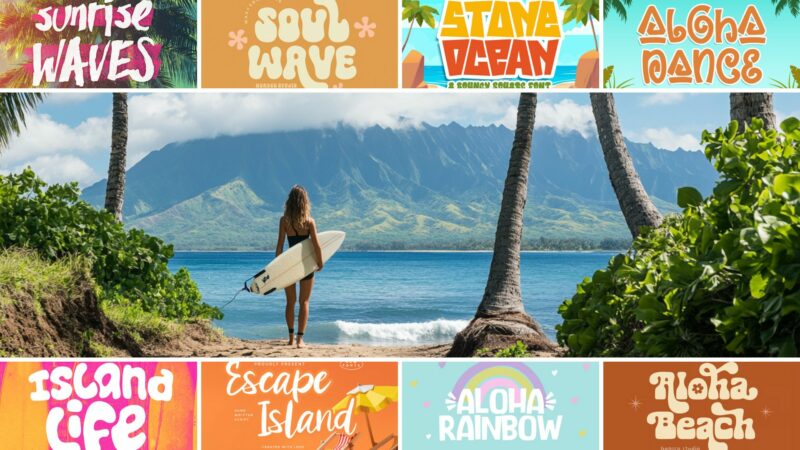
Finding the perfect Hawaiian font can transform an ordinary design into something that truly captures the aloha spirit. Whether you’re creating resort materials, restaurant menus, or brand designs that need that authentic island touch, the right font choice can transport your audience straight to the shores of Hawaii.
In this post, I’ll share my favorite Hawaiian fonts for 2026 and help you understand how to use them effectively. From flowing scripts that mirror ocean waves to bold display fonts that echo tiki culture, we’ll explore what makes a font feel authentically Hawaiian and how to incorporate that island charm in your designs.
My 52 Favorite Hawaiian Fonts Right Now
Tikiland
Tikiland is a playful and unique display font that evokes a tropical, island-inspired atmosphere. Its bold, quirky characters make it perfect for creating eye-catching headlines and logos with a fun, exotic flair.
Surfnik
Surfnik is a hand-crafted serif font that blends vintage surf culture with beatnik aesthetics. Its weathered appearance and retro charm make it ideal for projects seeking a nostalgic, laid-back vibe.
Aloha Dance
Aloha Dance is a whimsical script font that captures the essence of Hawaiian culture. Its lively, dancing characters exude a sense of joy and relaxation, perfect for beach-themed designs and summer projects.
Stone Ocean
Stone Ocean is a bouncy, square-shaped sans-serif font with a beachy vibe. Its unique geometric design combined with a playful bounce creates a modern yet fun font choice for various design projects.
Naluka
Naluka is an ethnic-inspired decorative font that comes with extra design elements. Its intricate patterns and tribal aesthetics make it perfect for projects requiring a touch of cultural authenticity and exotic appeal.
CABO BLANCCO
CABO BLANCCO is a bold, tropical-themed sans-serif font that embodies summer vibes. Its clean lines and decorative elements make it suitable for creating eye-catching headlines and logos with a warm, vacation-like feel.
Magic Land
Magic Land is a whimsical font that combines sans-serif and script styles with decorative elements. Its playful design evokes a sense of hippie culture and fantasy, perfect for creating dreamy, imaginative designs.
Beachcomber
Beachcomber is a versatile font family that includes serif, script, and decorative styles. Its vintage-inspired design captures the essence of beach vacations, making it ideal for creating nostalgic, coastal-themed projects.
Onboard
Onboard is a smooth script font that embodies the fluidity of waves and the spirit of surfing. Its elegant, flowing lines make it perfect for creating designs with a sense of movement and coastal energy.
Hawainas
Hawainas is a tropical display font with a cartoonish flair. Its playful, rounded characters make it ideal for children’s designs or projects that require a fun, lighthearted approach to Hawaiian-inspired typography.
Kuta Beach
Kuta Beach is a summer-inspired script font that captures the essence of beach life. Its relaxed, handwritten style makes it perfect for creating designs that evoke a sense of vacation and warm-weather fun.
Wakiki
Wakiki is a playful sans-serif font with a tropical twist. Its unique, slightly irregular characters give it a casual, hand-drawn feel, making it suitable for designs that require a laid-back, beachy vibe.
Jungle Bird
Jungle Bird is a versatile font package that includes sans-serif, script, and decorative styles with nature-inspired symbols. Its eclectic mix of elements makes it perfect for creating eye-catching designs with a wild, tropical feel.
Hawaiian Punk
Hawaiian Punk is a bold, edgy sans-serif font that combines tropical aesthetics with punk attitude. Its unique fusion of styles makes it ideal for creating designs that stand out with a rebellious, island-inspired flair.
Mauna Loa
Mauna Loa is a vintage-inspired Hawaiian font that captures the essence of retro tiki culture. Its bold, slightly distressed characters make it perfect for creating designs with a nostalgic, tropical vibe.
Sabuan Island Display Font
Sabuan Island is a unique serif display font with a tropical twist. Its distinctive characters and island-inspired design make it ideal for creating eye-catching headlines and logos with an exotic flair.
Paradise Island Cute Display
Paradise Island is a charming font package that includes decorative, handwritten, and sans-serif styles with playful swashes. Its cute and varied elements make it perfect for creating whimsical, tropical-themed designs.
Remember, what makes a font truly Hawaiian isn’t just its tropical appearance – it’s how well it respects and represents the culture while meeting your communication needs. Used wisely, these fonts can create engaging, culturally appropriate designs that capture the true spirit of aloha.